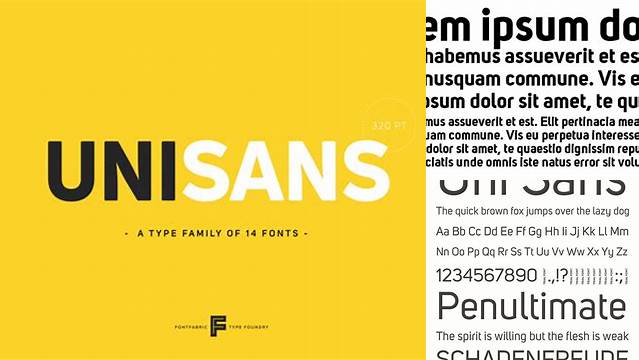
Are you looking to enhance your design projects with a modern and impactful font? Look no further! The Uni Sans Bold font family is an excellent choice for creating visually stunning and professional designs. This article will guide you through everything you need to know about Uni Sans Bold, including its features, uses, and where to download it for free. Whether you're a graphic designer, web developer, or just someone who loves typography, Uni Sans Bold is a valuable addition to your font library.
What is Uni Sans Bold?
Uni Sans Bold is a contemporary sans-serif typeface known for its clean lines, geometric shapes, and strong visual presence. It's part of the larger Uni Sans font family, which includes various weights and styles, but the bold version stands out for its emphasis and readability. Designed with versatility in mind, Uni Sans Bold works well in a variety of applications, from headlines and logos to body text and user interfaces. Its modern aesthetic makes it a popular choice for projects that require a touch of sophistication and clarity.
Key Features of Uni Sans Bold
- Clean and Modern Design: Uni Sans Bold features a clean, uncluttered design that makes it easy to read and visually appealing. Its geometric shapes and uniform strokes contribute to its contemporary look.
- High Readability: Despite its bold weight, Uni Sans Bold maintains excellent readability, even at smaller sizes. This makes it suitable for both print and digital media.
- Versatile Use: This font can be used in a wide range of design projects, including logos, posters, websites, and mobile apps. Its strong presence makes it ideal for headlines and call-to-action buttons.
- Bold Weight: The bold weight adds emphasis and makes text stand out. This is particularly useful for highlighting important information or creating a strong visual impact.
- Geometric Shapes: The font's geometric shapes give it a structured and balanced appearance. This makes it a great choice for designs that require a sense of order and precision.
Why Choose Uni Sans Bold?
Choosing the right font can significantly impact the success of your design projects. Uni Sans Bold offers several advantages that make it a standout choice:
- Professional Look: Uni Sans Bold lends a professional and polished look to any design. Its clean lines and modern design make it suitable for corporate branding and marketing materials.
- Enhanced Readability: Its high readability ensures that your message is easily understood, regardless of the medium. This is crucial for effective communication.
- Strong Visual Impact: The bold weight commands attention and helps your text stand out. This is particularly useful for creating eye-catching headlines and call-to-action elements.
- Versatility: Its versatility allows you to use it in a wide range of projects, saving you time and effort in finding the right font for each task.
How to Use Uni Sans Bold in Your Projects
Uni Sans Bold can be used in a variety of design projects to enhance their visual appeal and readability. Here are some practical tips on how to incorporate it effectively:
Logos and Branding
When it comes to creating a strong brand identity, typography plays a crucial role. Uni Sans Bold is an excellent choice for logos and branding materials because of its modern and professional appearance. Its clean lines and bold weight make it easily recognizable and memorable. Use Uni Sans Bold in your logo to convey a sense of strength, clarity, and innovation. Pair it with a lighter weight from the Uni Sans family for body text to create a balanced and cohesive brand aesthetic.
- Example: A tech startup might use Uni Sans Bold for its logo to project a cutting-edge and reliable image. The boldness of the font conveys confidence, while its clean design ensures readability and modernity.
Headlines and Titles
Headlines and titles are the first thing that catches the reader's eye, so it's essential to use a font that stands out and grabs attention. Uni Sans Bold is perfect for this purpose. Its strong visual presence ensures that your headlines are noticed and read. Use it for website headers, poster titles, and marketing materials to make a bold statement. Ensure that the font size is appropriate for the medium and that the contrast with the background is sufficient for optimal readability.
- Example: A marketing campaign for a new product could use Uni Sans Bold for the main headline on a poster or website banner. The font's boldness will draw attention to the message and create a sense of excitement.
Body Text
While Uni Sans Bold is primarily used for headlines and titles, it can also be used for body text in certain situations. For shorter paragraphs or call-to-action buttons, Uni Sans Bold can add emphasis and clarity. However, for longer blocks of text, it's best to use a lighter weight from the Uni Sans family to ensure readability and prevent eye strain. When using Uni Sans Bold for body text, pay attention to the font size and line spacing to maintain a comfortable reading experience.
Uni Sans Bold is a versatile and modern font that can enhance the visual appeal and readability of your design projects. Its clean lines, bold weight, and geometric shapes make it a great choice for logos, headlines, and branding materials. While Uni Sans Bold may not always be available for free, there are many similar fonts that you can use as alternatives. By following the tips and recommendations in this article, you can choose the right font for your project and create stunning designs that capture attention and communicate effectively. Whether you're a seasoned designer or just starting, Uni Sans Bold and its alternatives are valuable additions to your font library. So go ahead, explore these fonts, and elevate your designs to the next level!